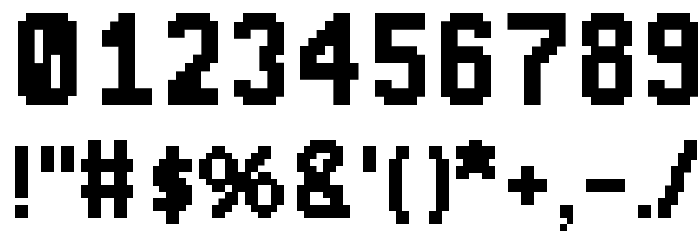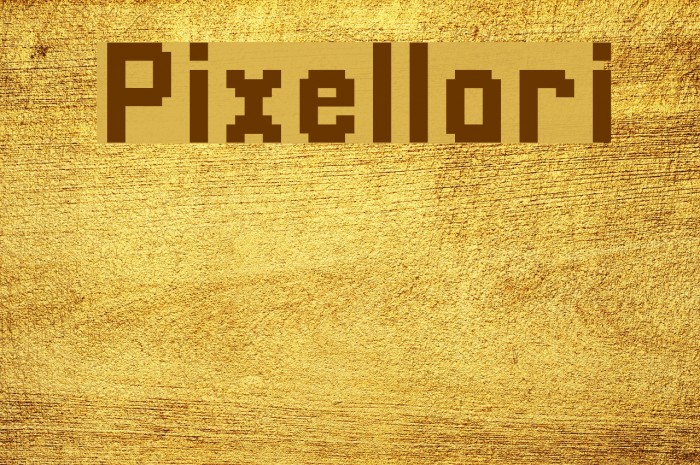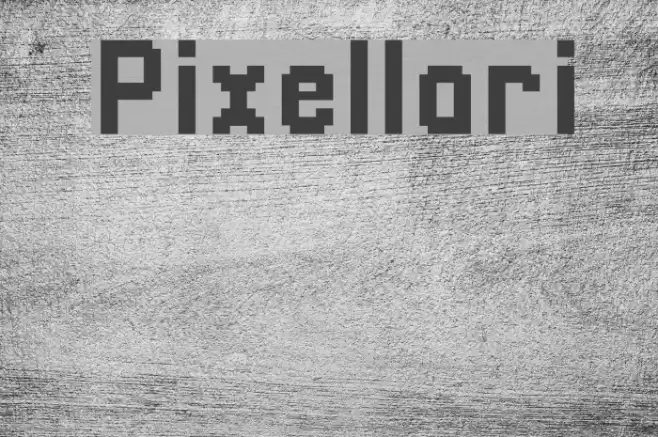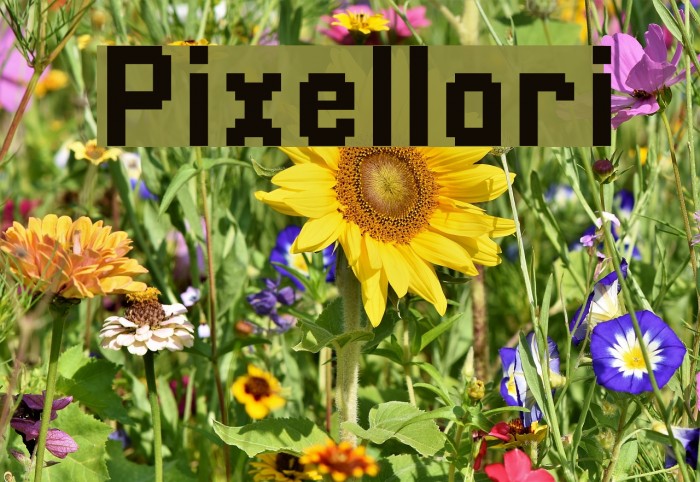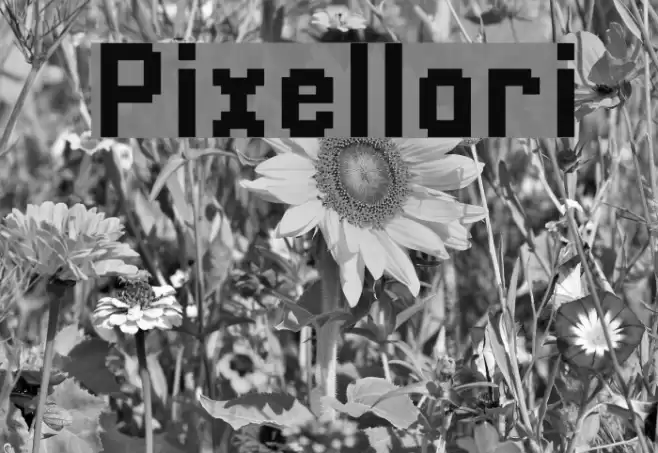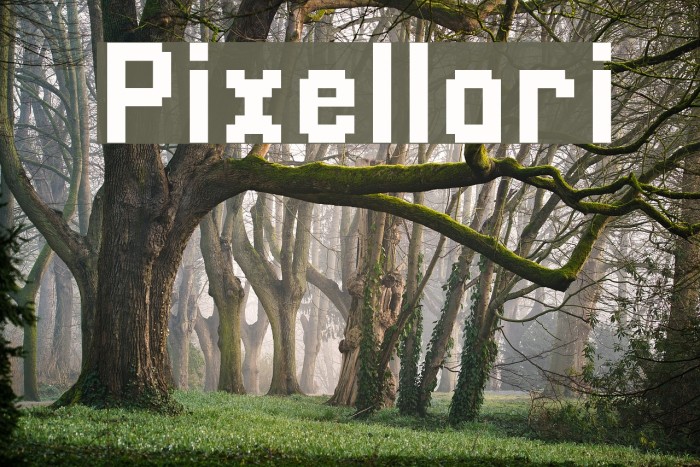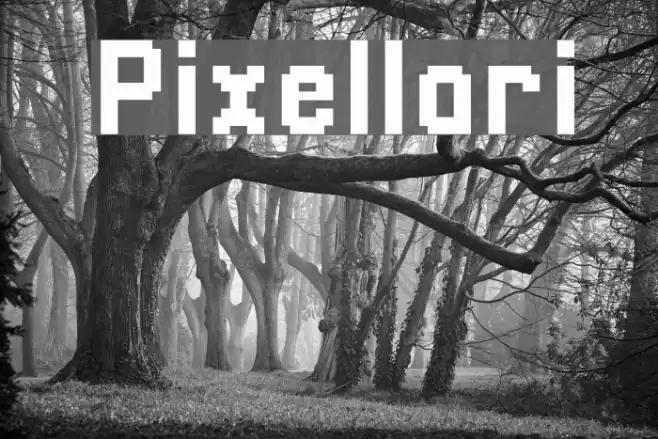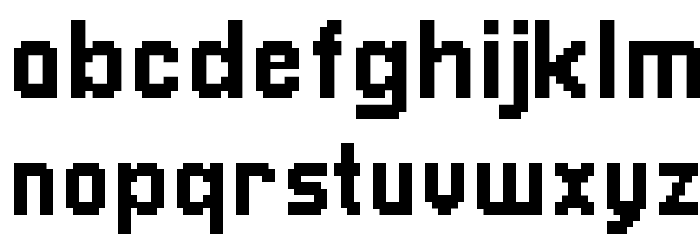
Pixellari Font
Pixellari Description
This font features a distinct pixelated style reminiscent of early digital displays and video games. Each character is constructed with a grid-like precision, giving it a retro, 8-bit aesthetic. The uppercase and lowercase letters maintain a uniform height, contributing to a cohesive and structured appearance. Numbers and special characters follow the same pixelated design, ensuring consistency across all elements. The font's blocky nature makes it highly legible at various sizes, though it shines best in larger formats where its unique style can be fully appreciated.
A pixelated, retro-style font inspired by early digital displays from Uncategorized fonts.
- Proposed Projects: Ideal for retro video games, digital art projects, and any design requiring a nostalgic, 8-bit aesthetic.
- Overall Style: Vintage
- Use Case: Headlines, Logos, Digital Art